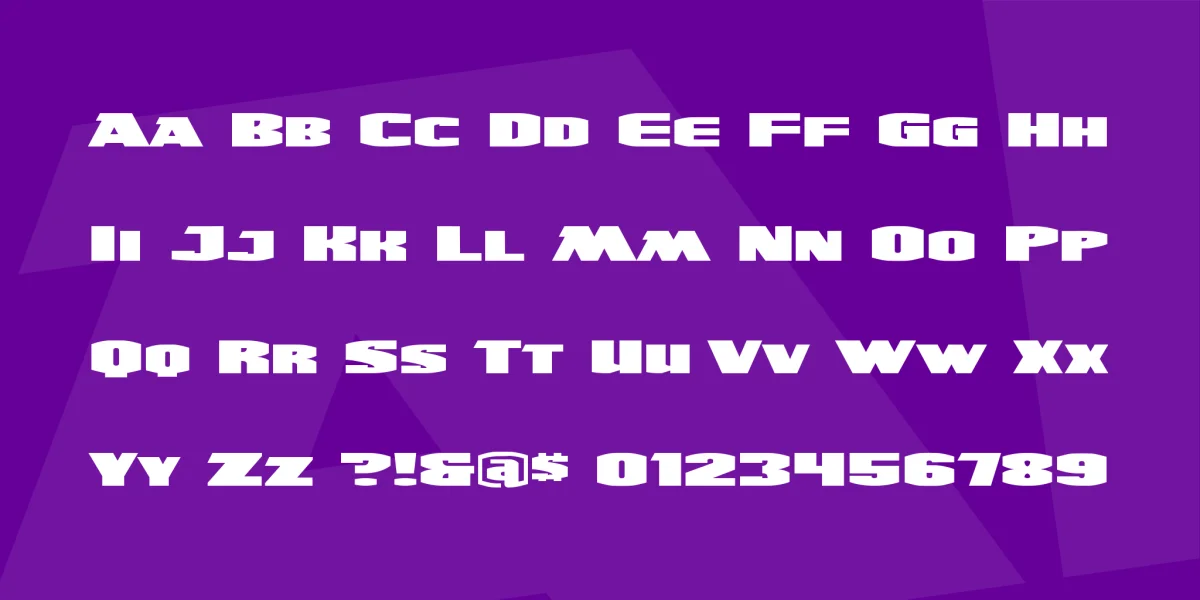
It's got that action movie vibe! Bullets flying, swords clashing and so much "bullet-time" slow motion camera spins that you might even get dizzy. Includes Regular and Italic.